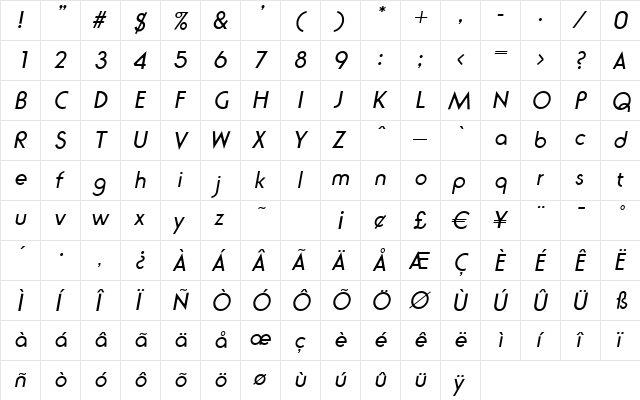
R791-Deco Italic
Design Context for R791-Deco Typeface
R791-Deco takes a measured approach to typography — its balanced proportions and neutral character make it a reliable workhorse for both digital and print work. Its italic angle brings a sense of urgency and motion to the letterforms.